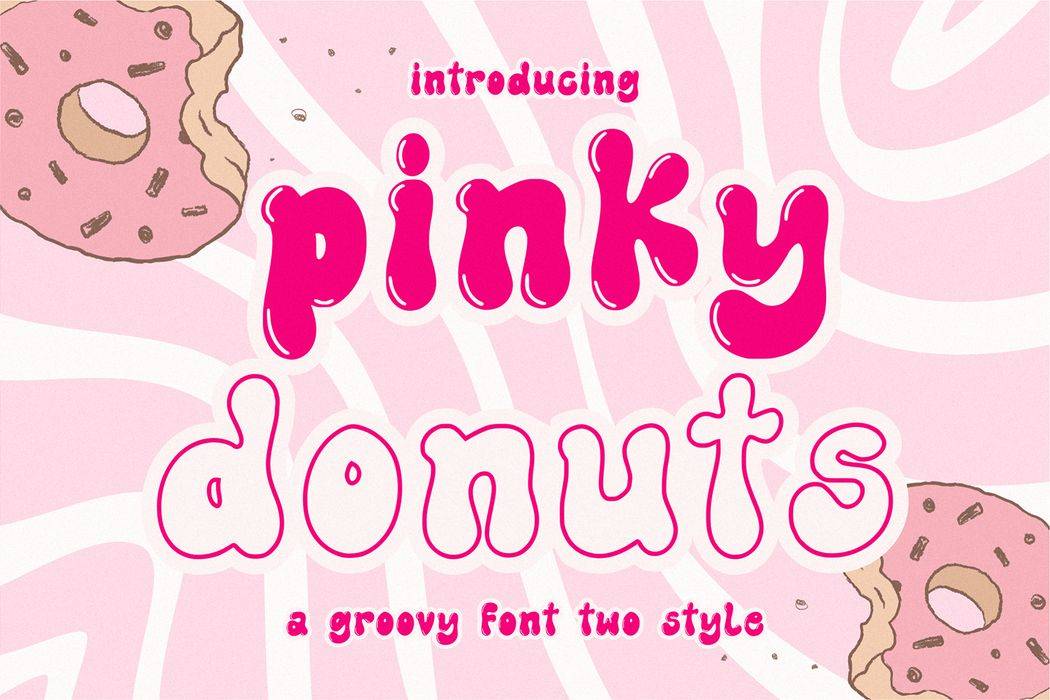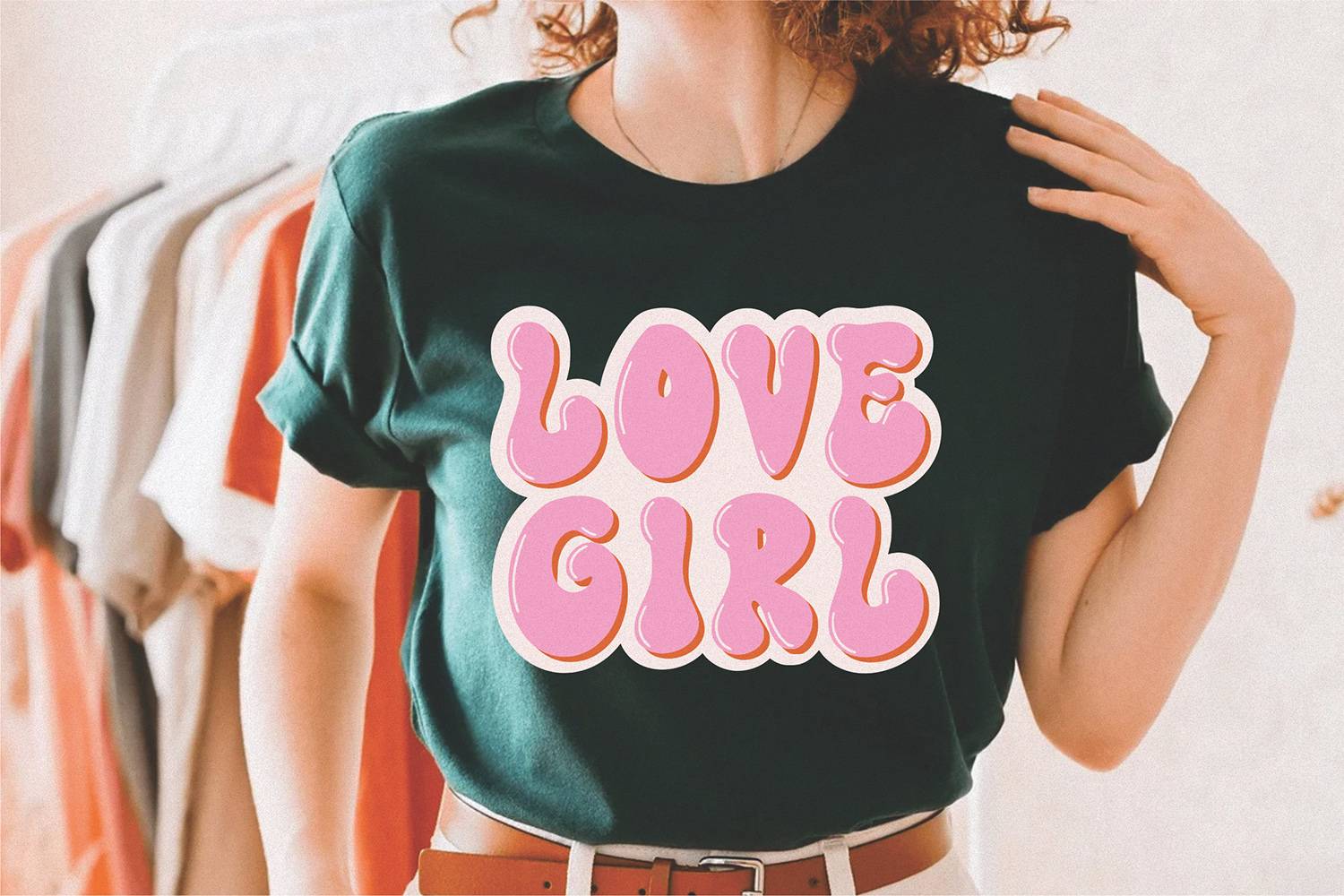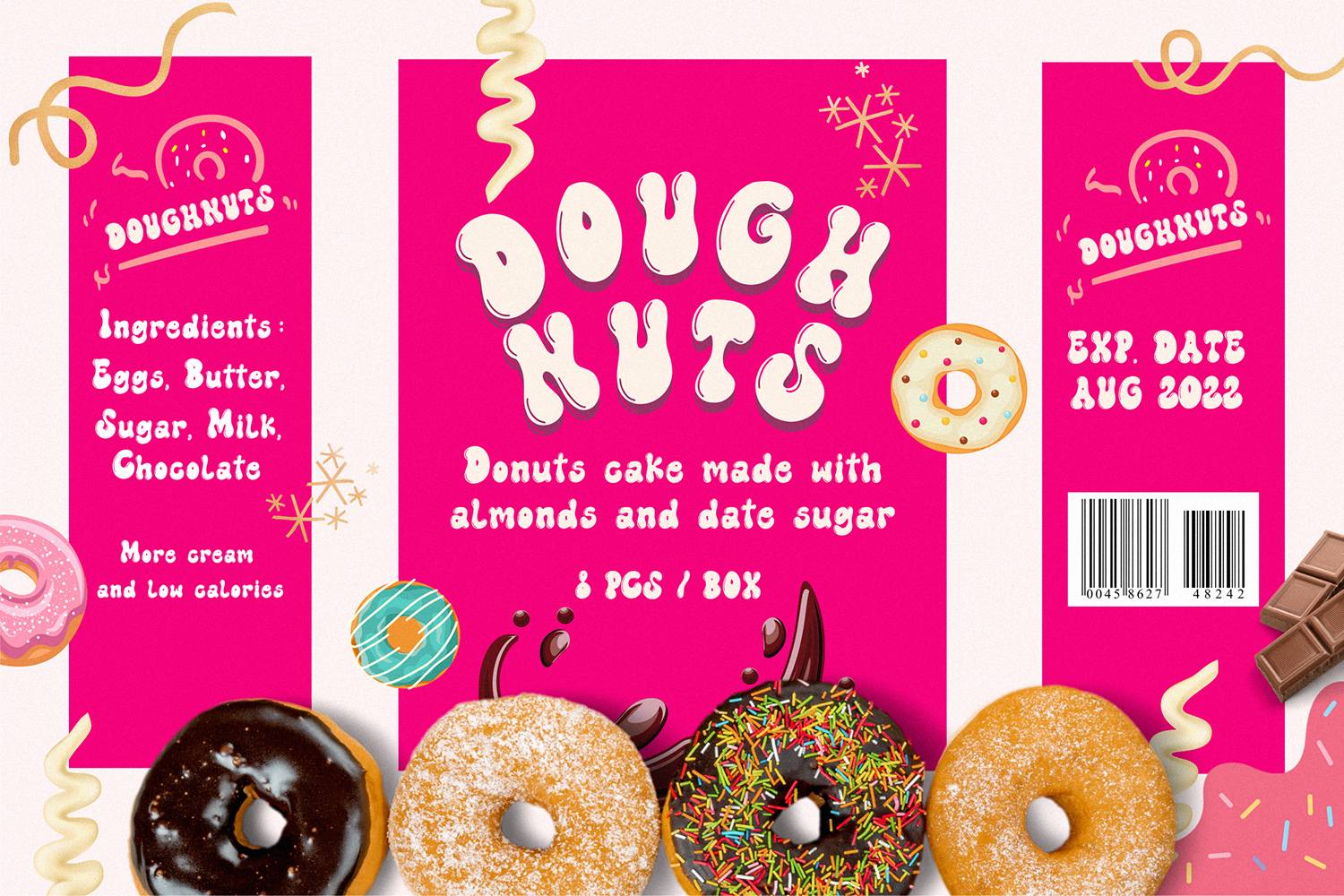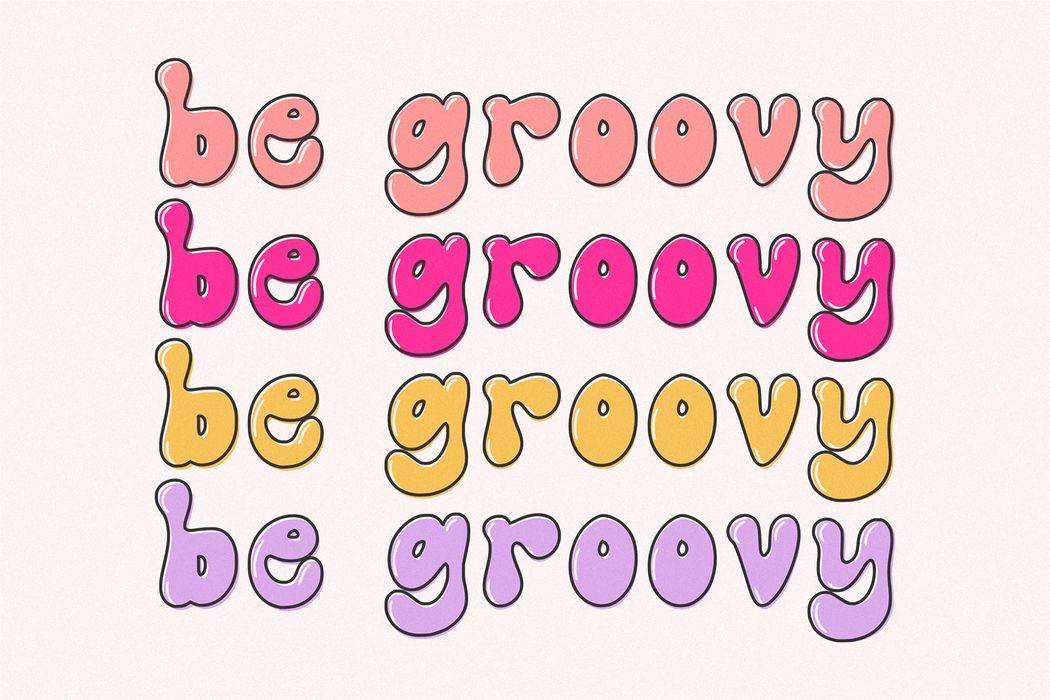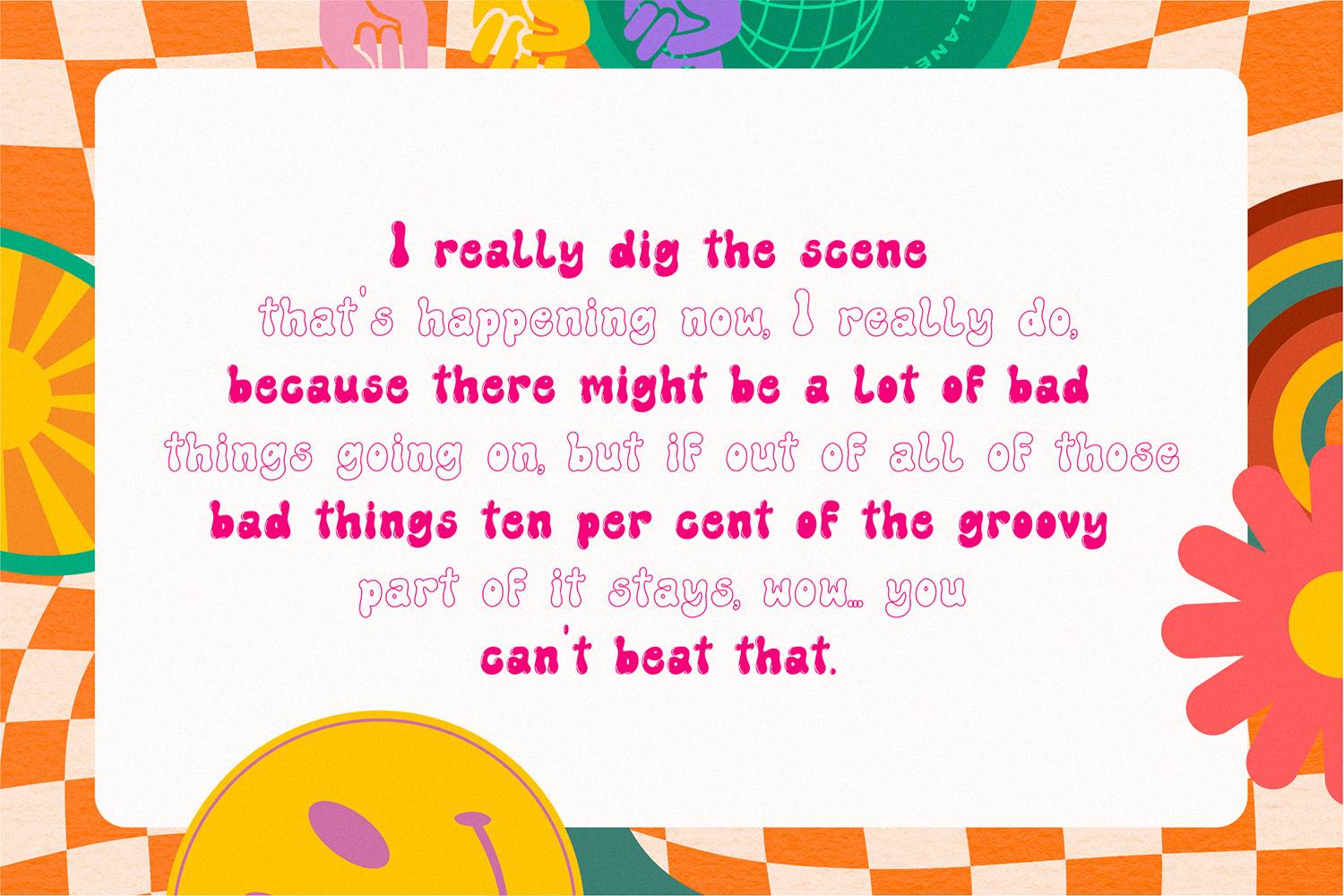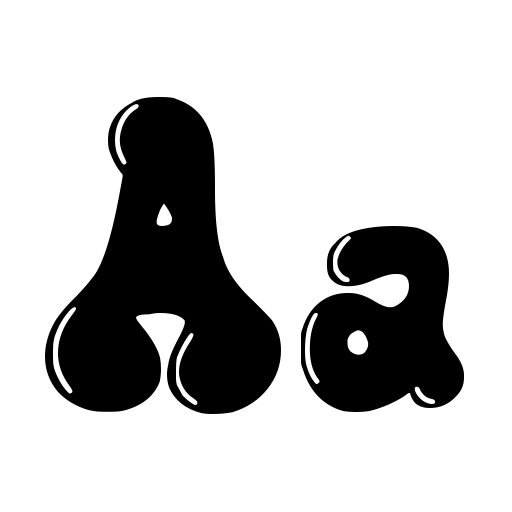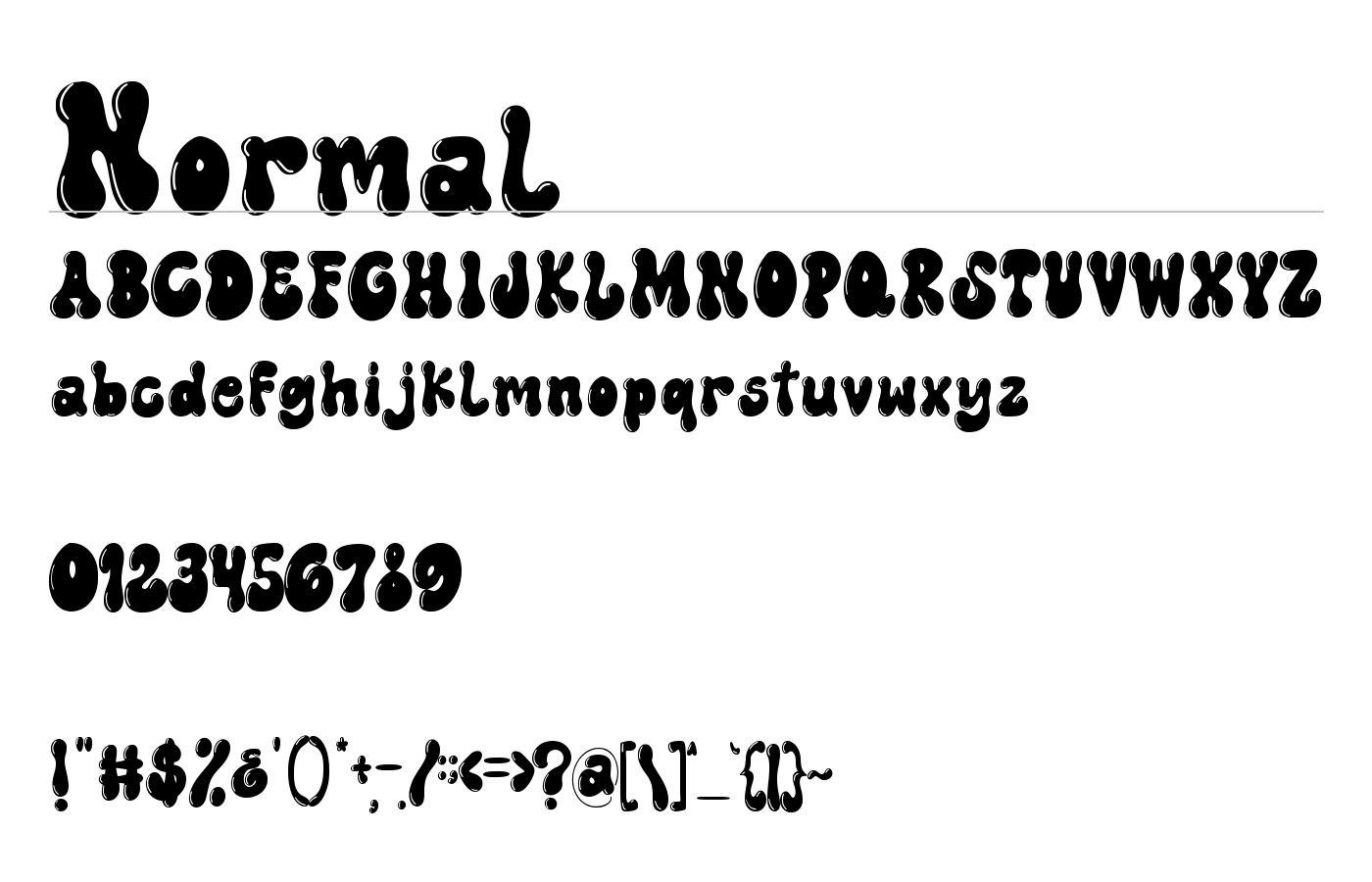
Pinky Donuts is a playful, bold display font featuring rounded, bubbly letterforms that evoke a fun, whimsical vibe. Its thick, soft strokes and exaggerated curves give it a friendly, informal feel, perfect for engaging headlines, logos, and packaging in casual or youthful branding. This font works best where a lighthearted, eye-catching personality is desired, such as in confectionery, children’s products, or entertainment.
Pinky Donuts Font
About Pinky Donuts Font